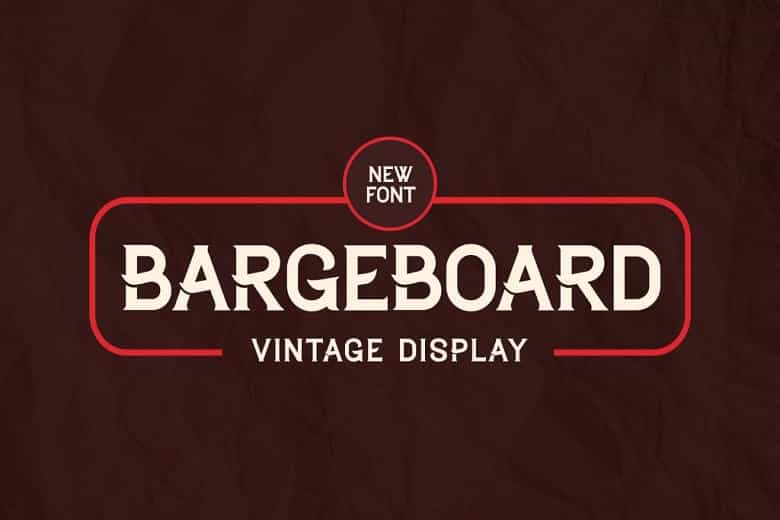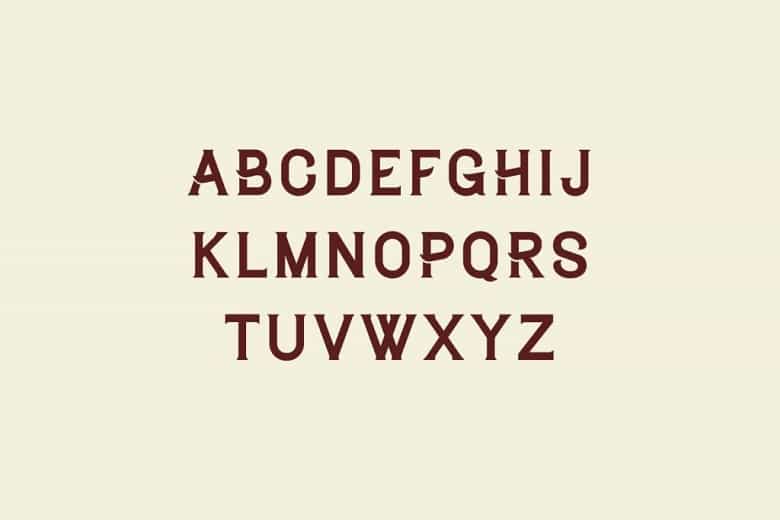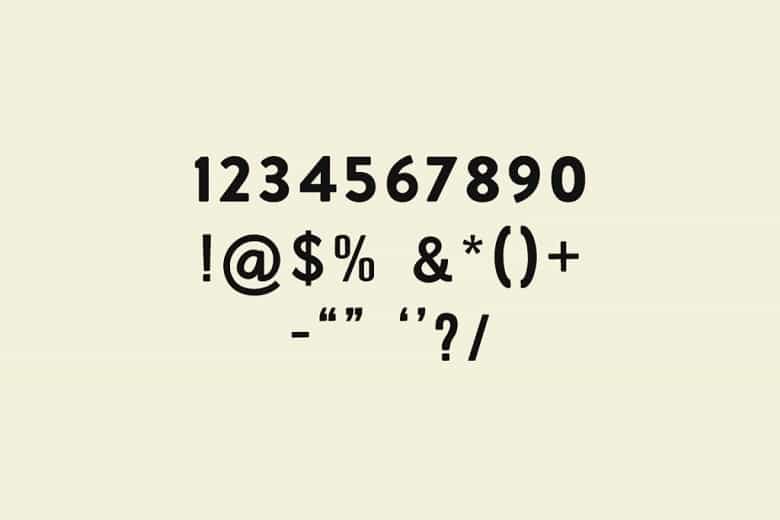
Bargeboard is a modern vintage display font, it looks beautiful classy, elegant and stylish. This font is perfect for use in a number of fields including; signature, stationery, logo design, wedding, quotes, magazine or book covers, website heading, branding and much more. Also, fashion related branding or editorial design has elements of both, the masculine and the feminine.